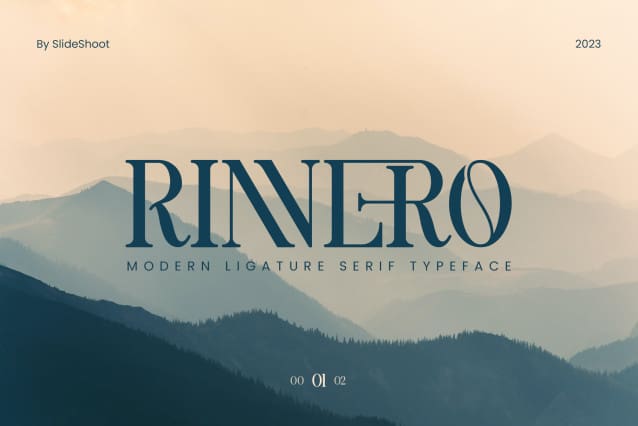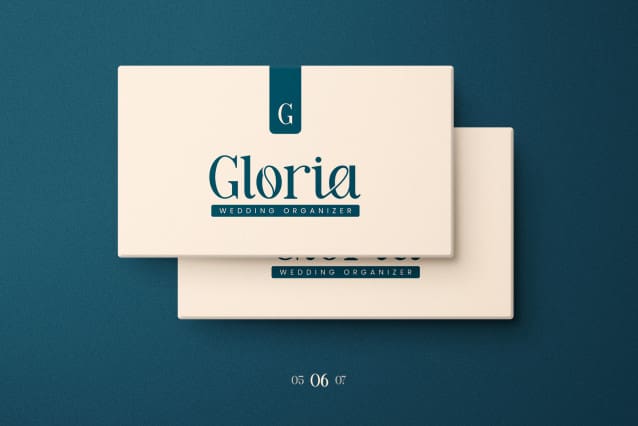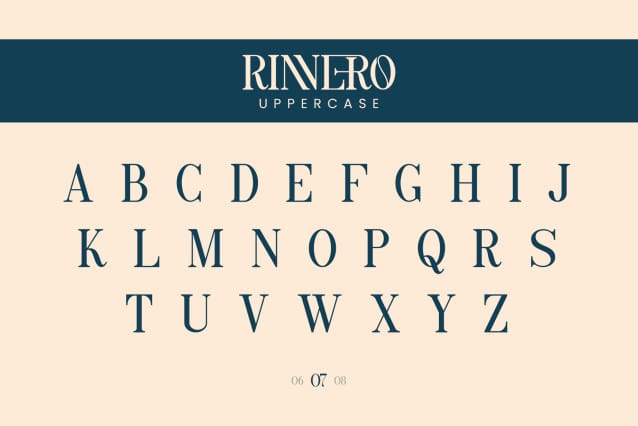
Rinnero Serif Font
Rinnero Serif Font is a balanced, smooth, elegant and stylish serif font. He has a beautiful character. It fits perfectly with invitation card designs, company logos, movie titles, movie names, business cards, book titles, brand names and various other designs. Rinnero Serif is a subtle serif font that exudes sophistication and elegance. Its stylish alternations and ligatures make this font the perfect partner for any project.